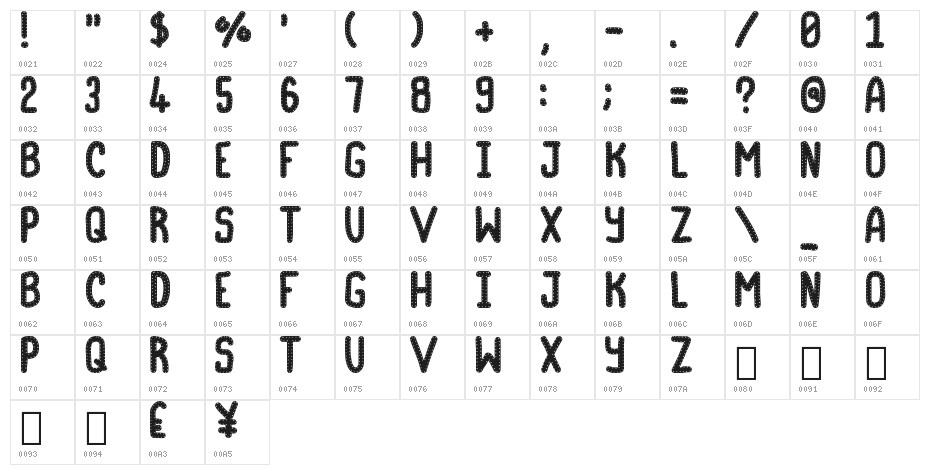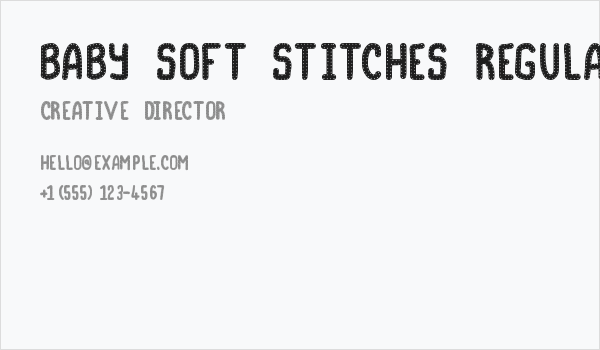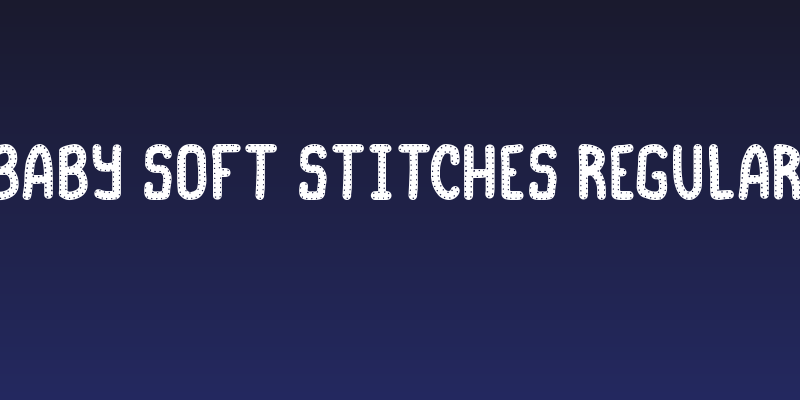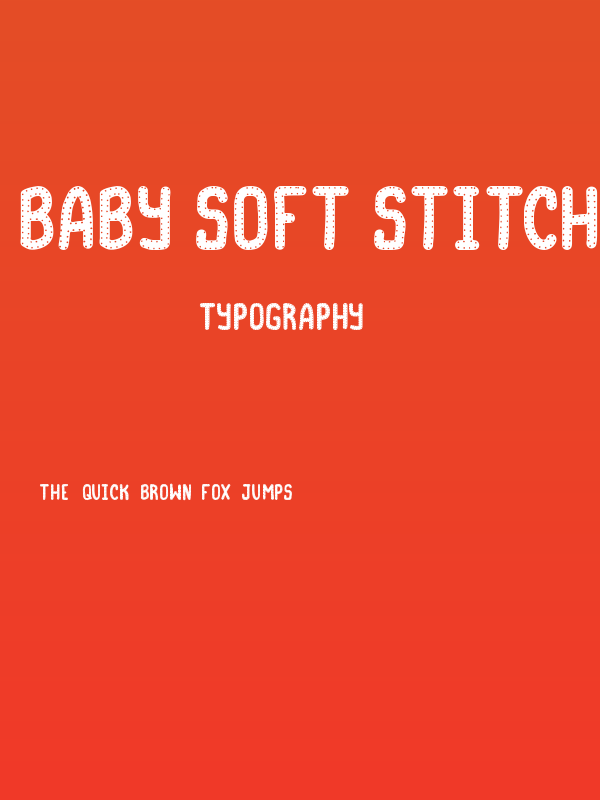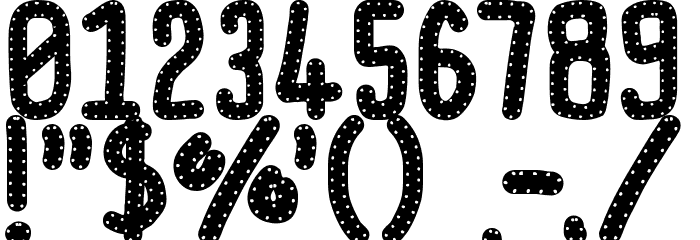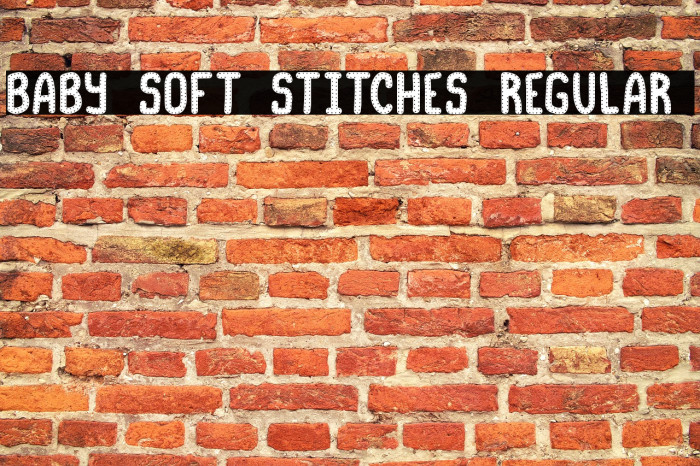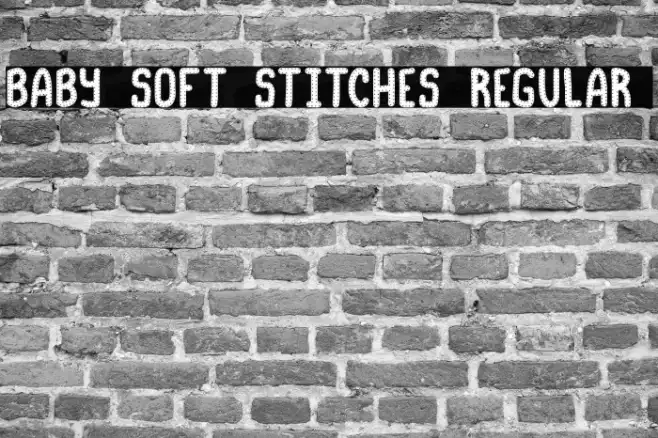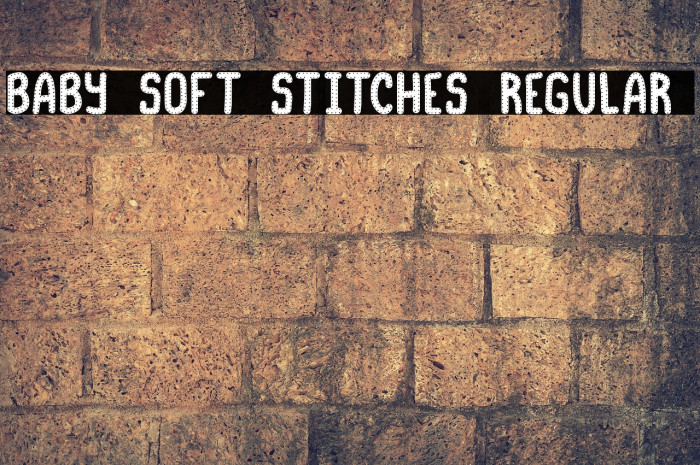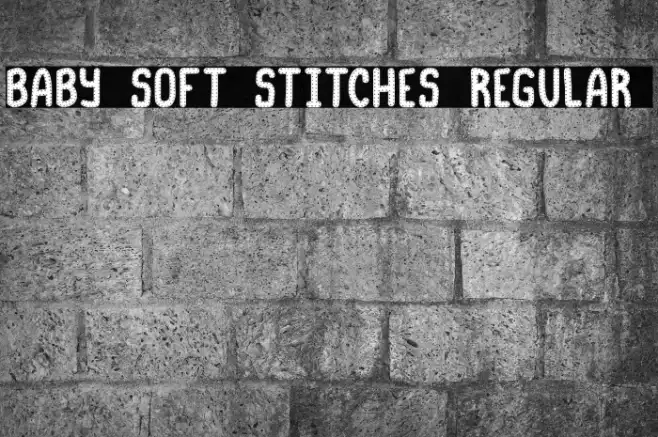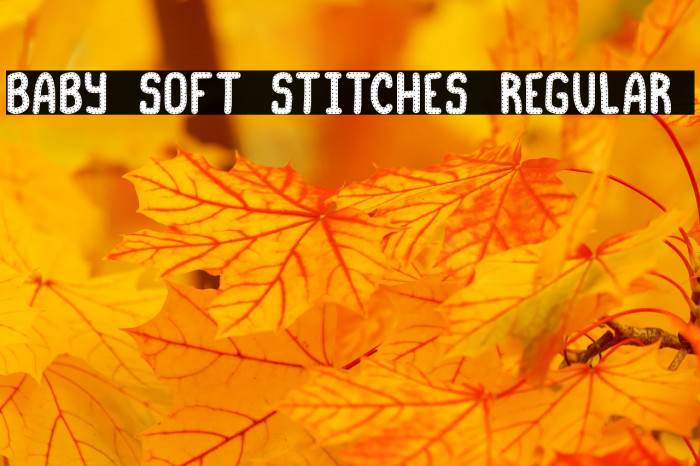
Baby Soft Stitches Regular Font
Baby Soft Stitches Regular Description
This playful and whimsical font features a unique stitched design, giving each character a soft, handcrafted appearance. The letters are bold and rounded, with a dotted pattern that mimics the look of stitches, adding a touch of charm and creativity. The font maintains a consistent thickness throughout, ensuring readability while still offering a decorative flair. Its playful nature makes it ideal for projects that require a fun and friendly touch, such as children's books, crafts, or playful branding. The overall style is both modern and nostalgic, combining contemporary design with a hint of vintage sewing aesthetics.
| Overall Style | Playful, Modern, Nostalgic |
| Proposed Projects | Ideal for children's books, crafts, playful branding, and creative projects. |